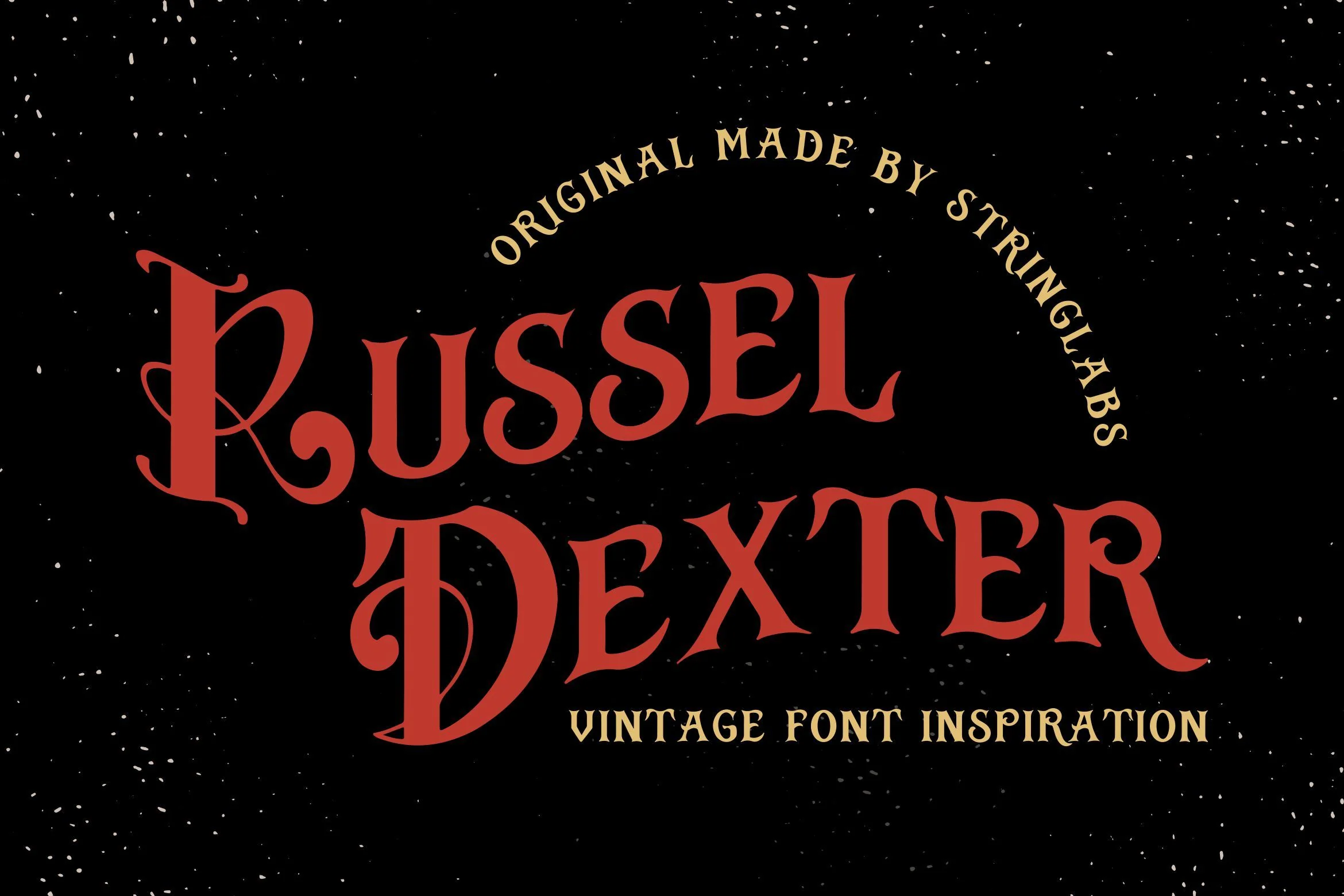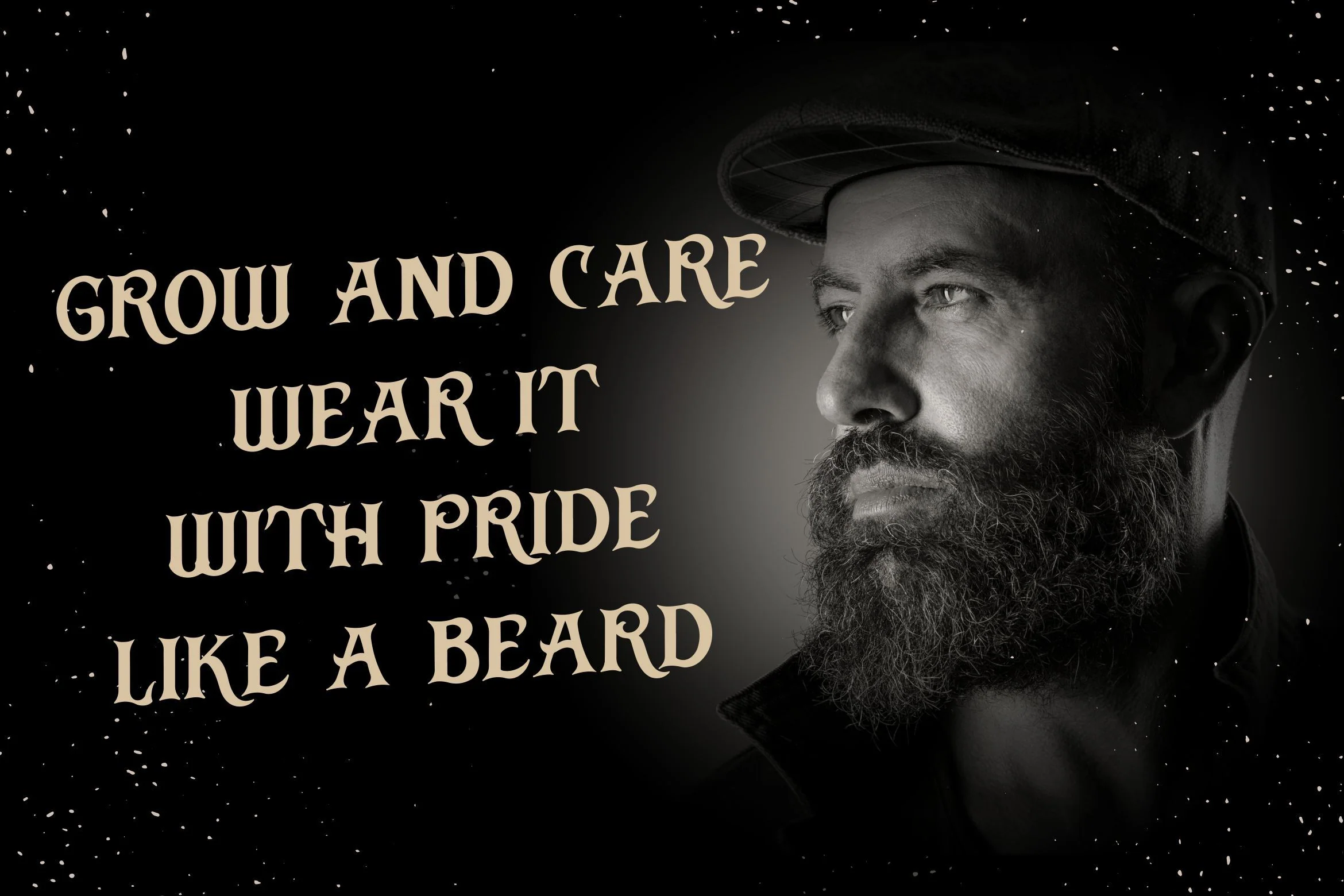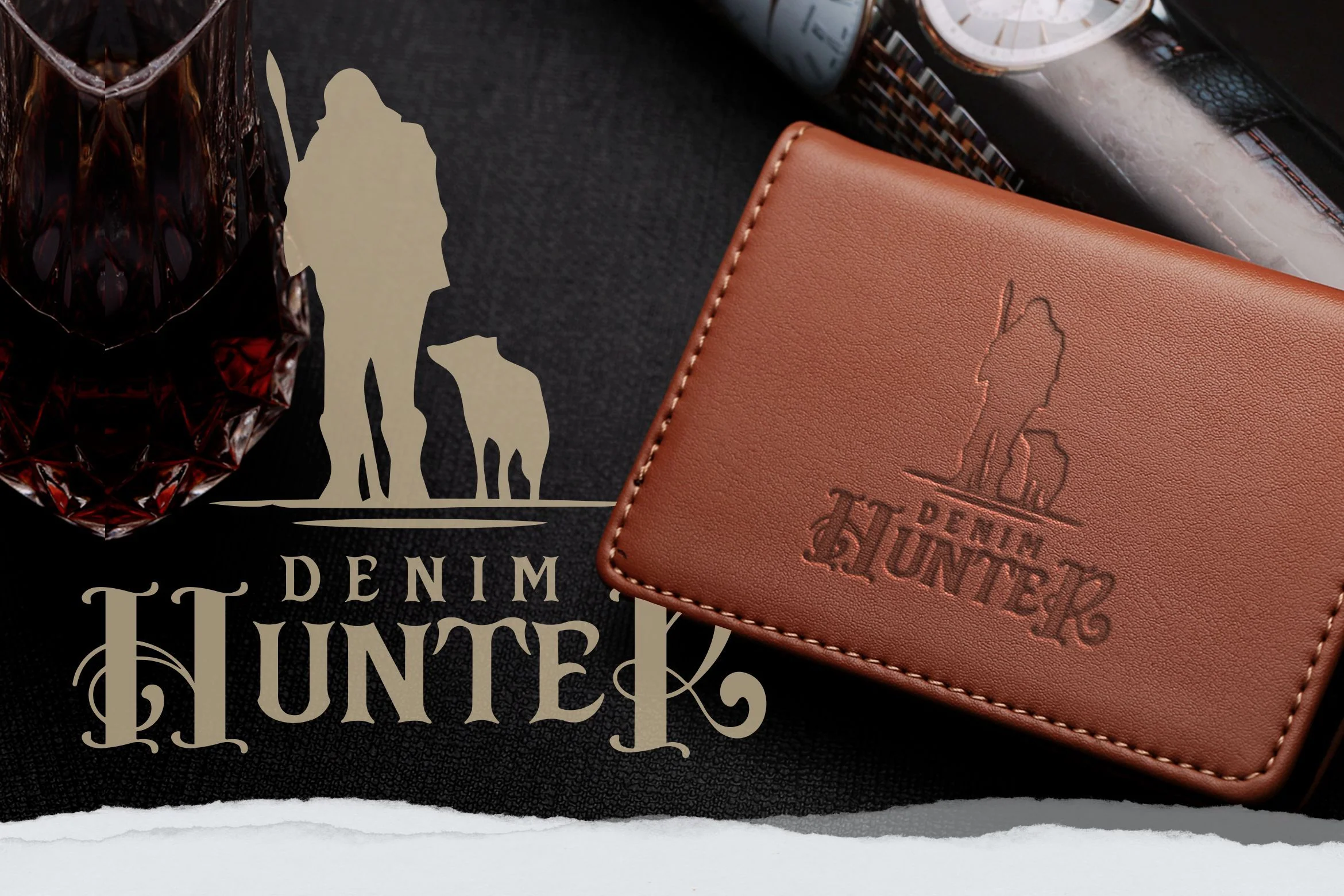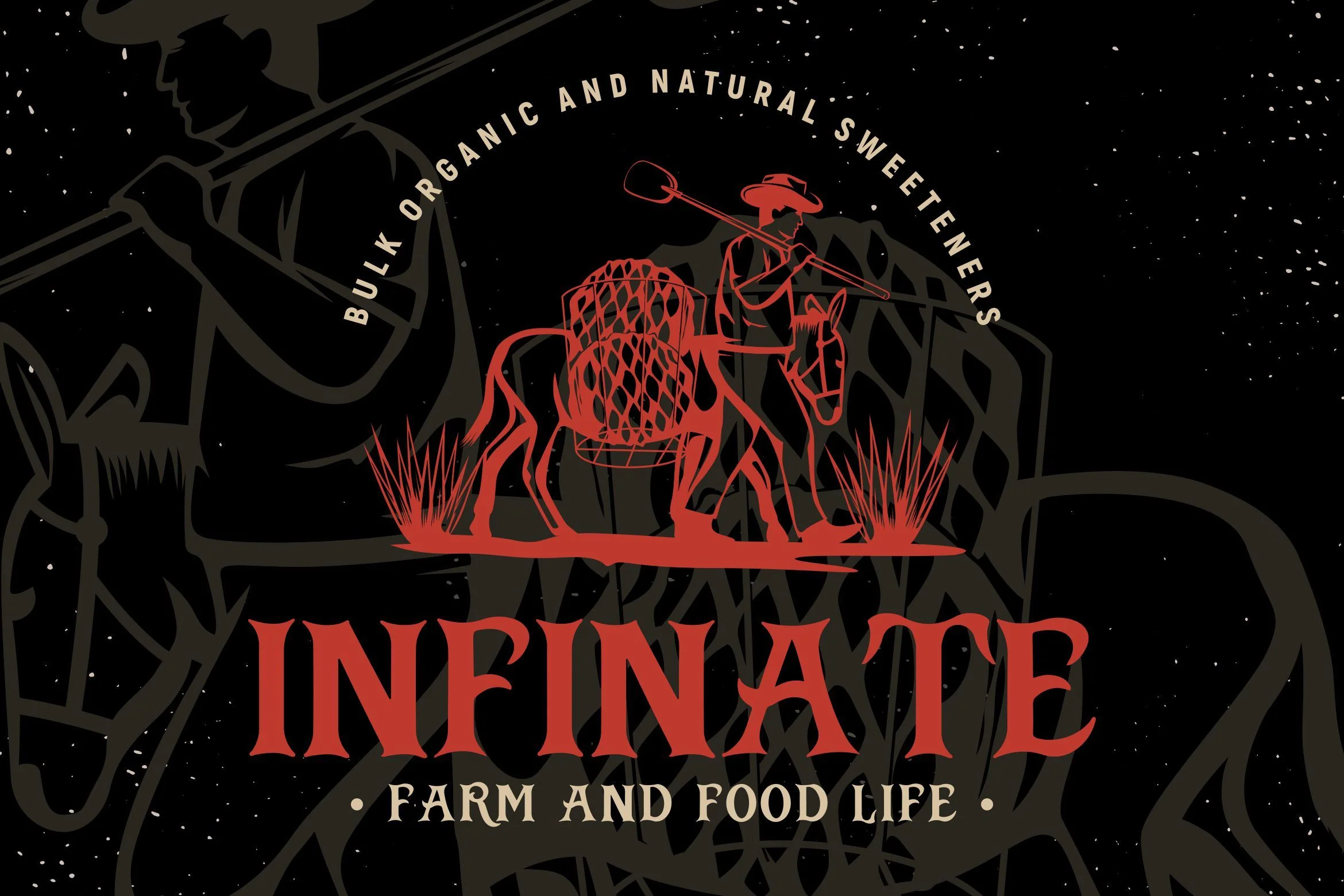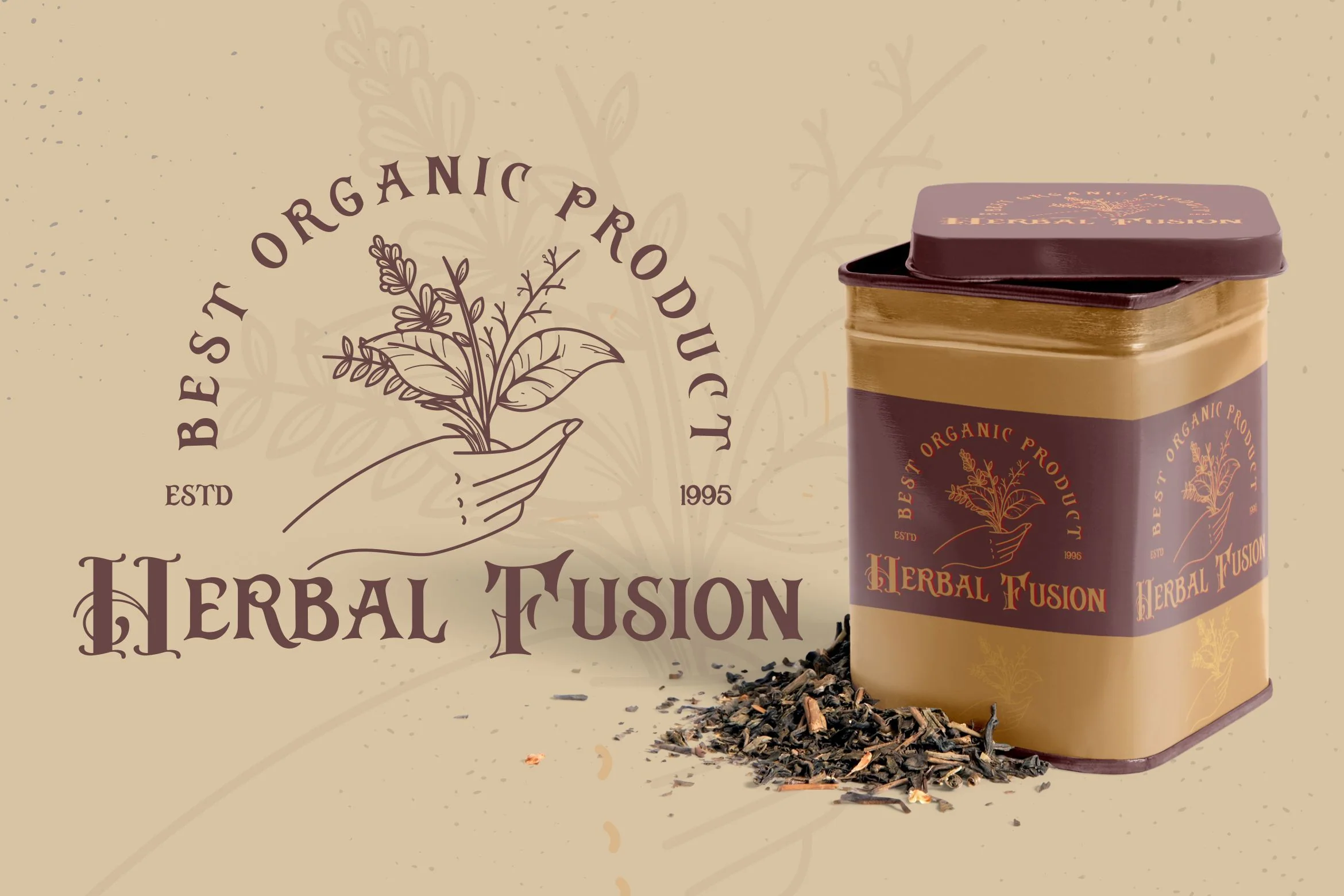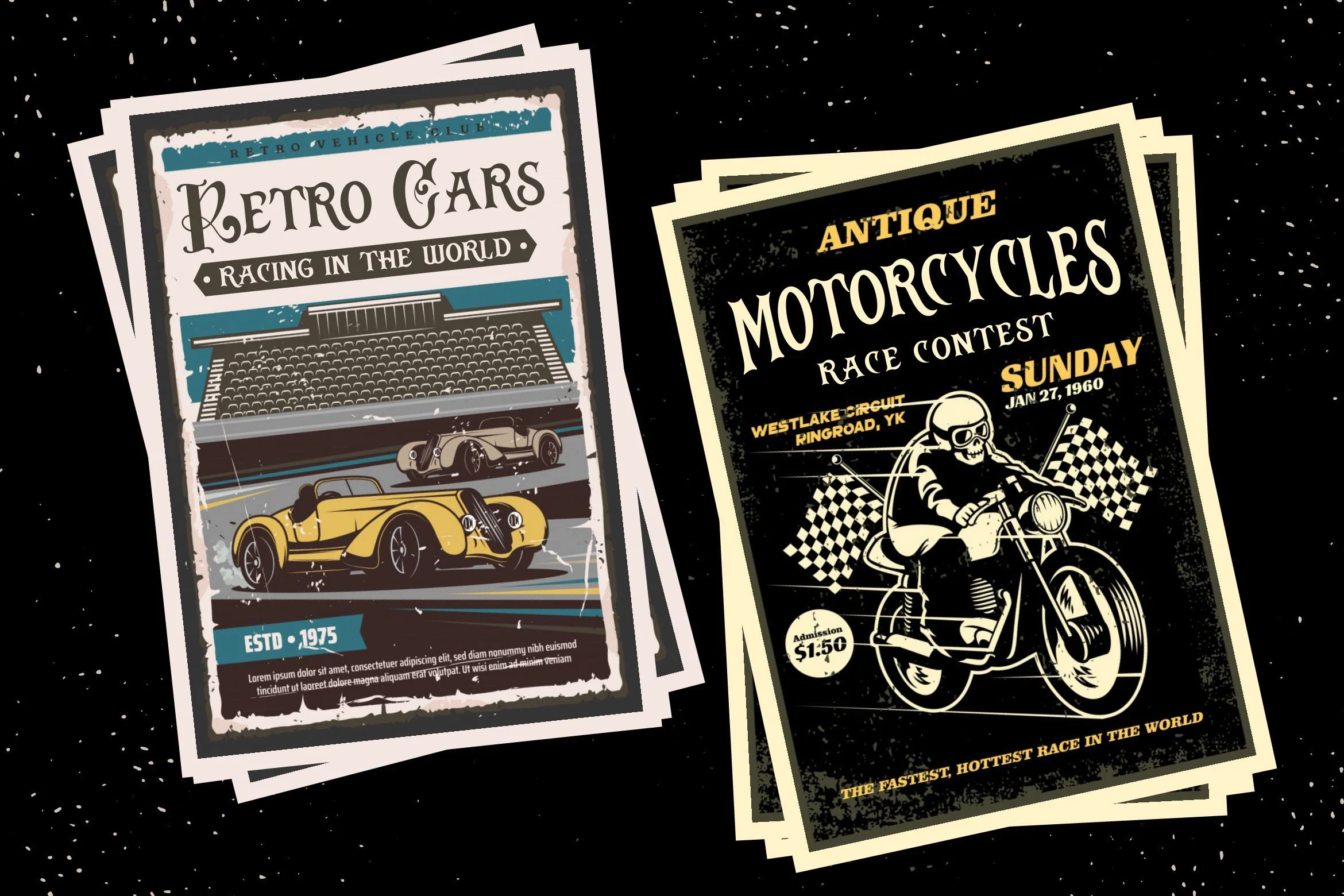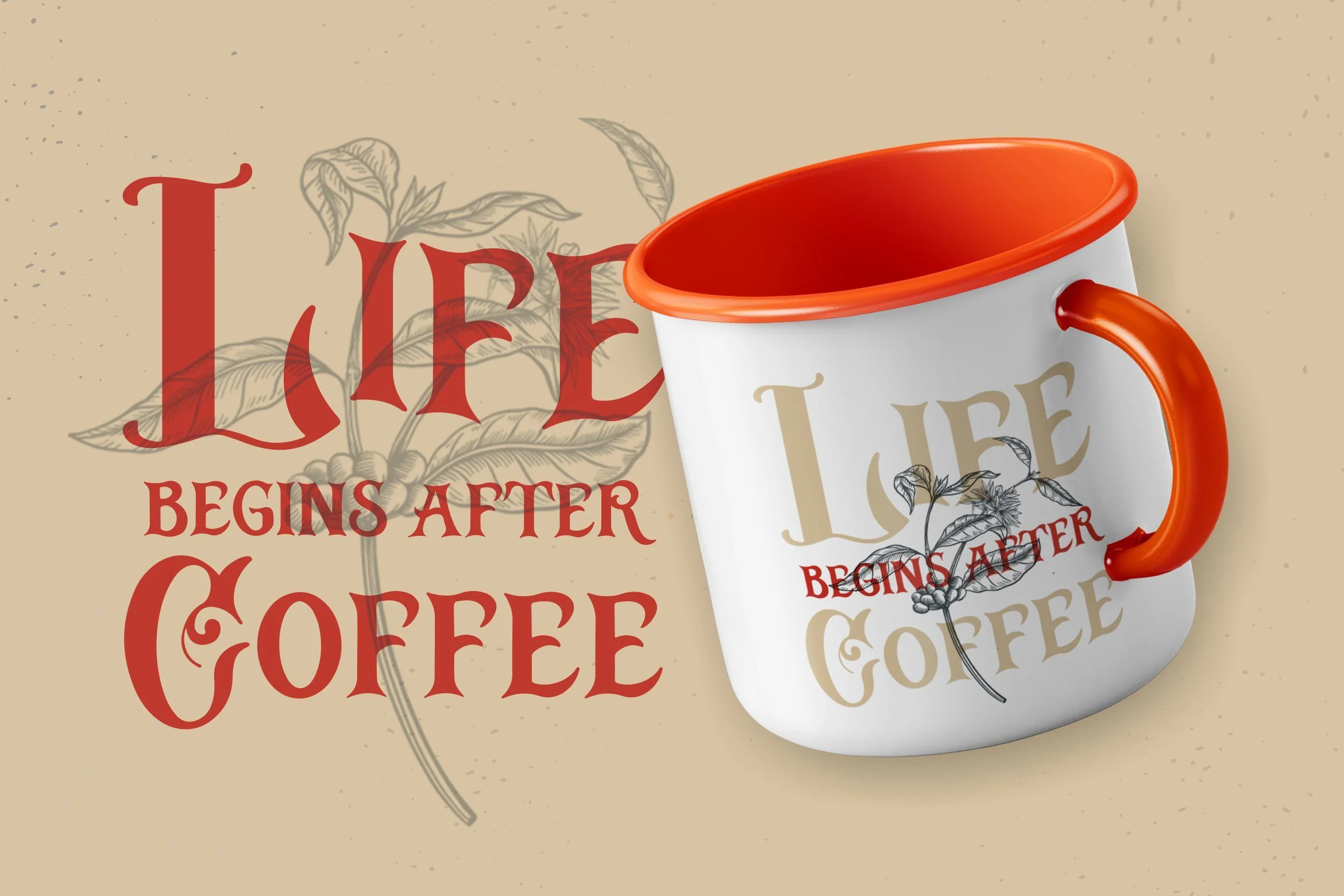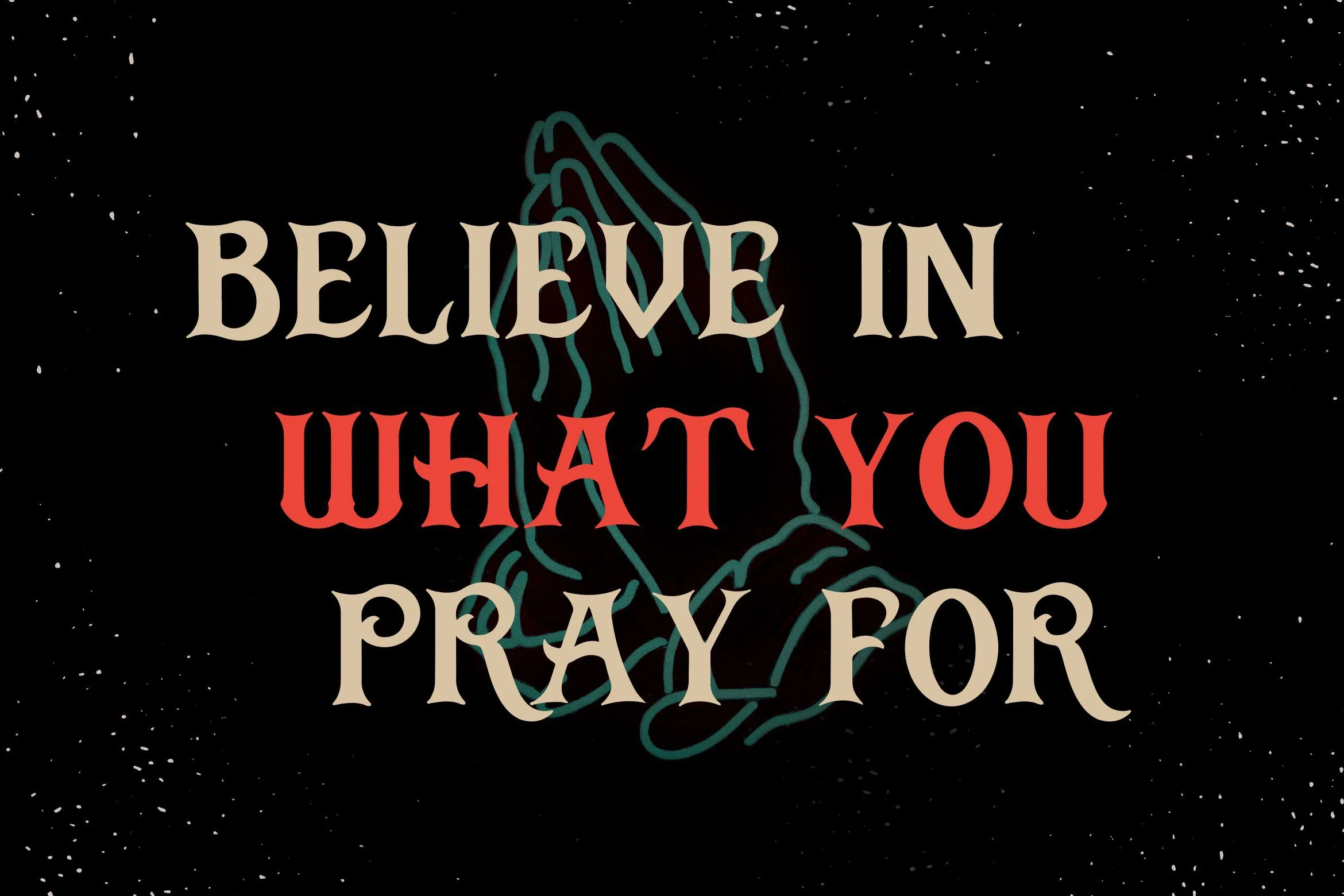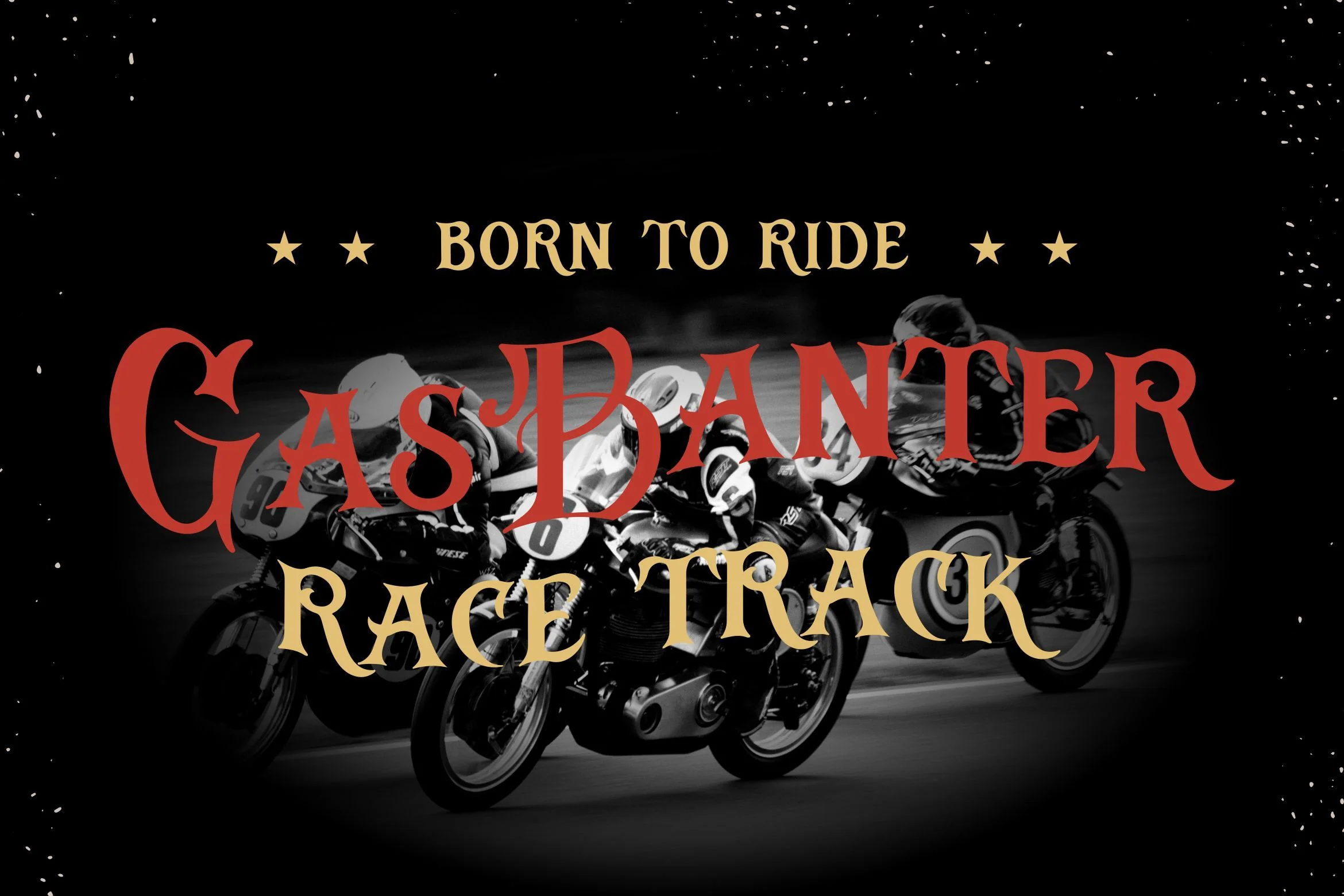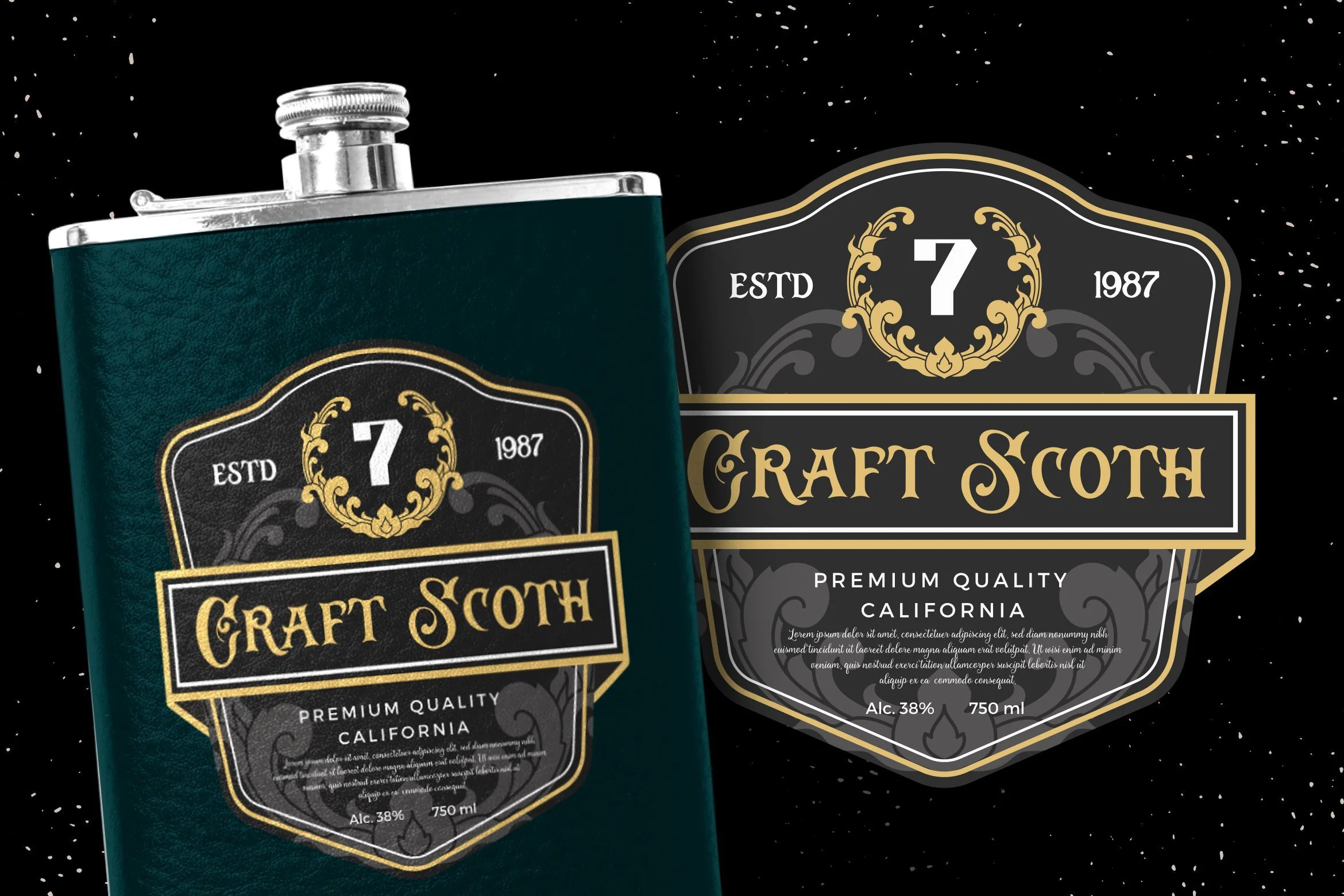
Russel Dexter - Retro Vintage Script Font
Introducing Russel Dexter - Retro Vintage Script Font
Russel Dexter is a Retro diplay font with vintage style. This font has unique design taste and also combine with classic retro style. Russel Dexter is perfect for decorative lovers, besides this font is also perfect if used for brands such as: barbershop, motorcycle club, clothing, coffee shop, shoe brands, vapor shop, brewing, wine, hipster and many more.
This Font Template contains Classy, Elegant, Creative, Cool and has a Unique Concept.